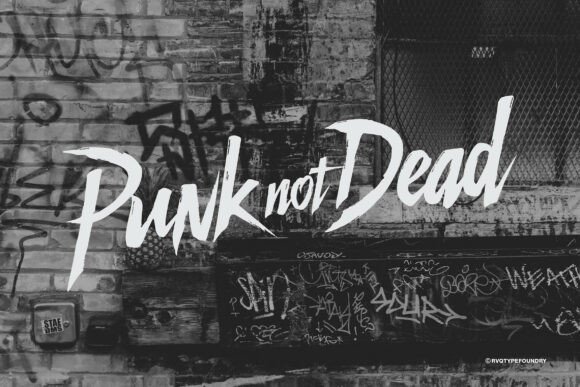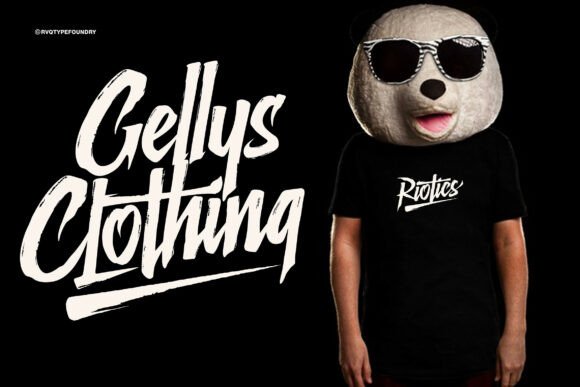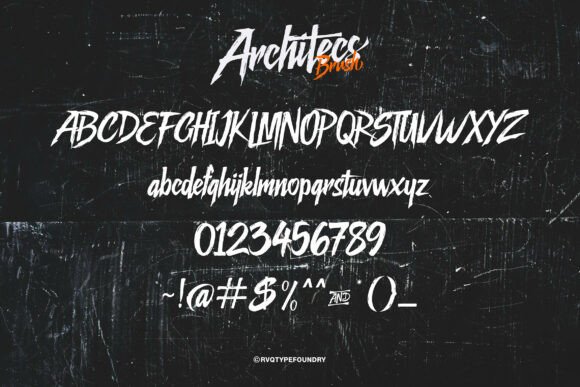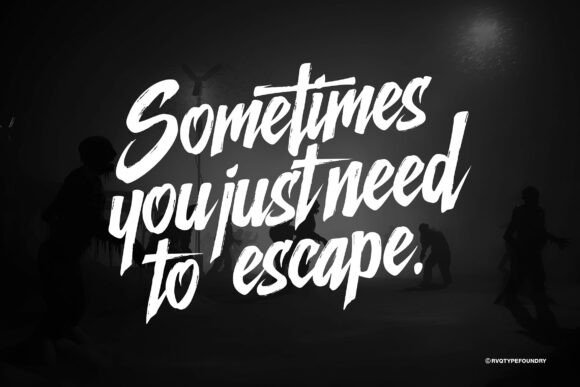
Introducing the Architecs Brush Font: Elevate Your Designs with Elegance and Vintage Charm
Are you on the hunt for a font that exudes sophistication, elegance, and a touch of vintage flair? Look no further than the Architecs Brush Font. This stunning handwritten brush font is designed to add a unique and personal touch to your designs, making it perfect for crafters, designers, and anyone looking to elevate their creative projects.
What Makes the Architecs Brush Font So Special?
The Architecs Brush Font boasts an elegant and vintage feel character set that is sure to captivate your audience. Its unique charm lies in its ability to create beautiful combinations by mixing uppercase and lowercase letters with alternative glyphs. This versatility allows you to experiment with various typography styles, ensuring your designs stand out from the crowd.
Key Features of the Architecs Brush Font
So, what can you expect from this fantastic font? Here are some of its key features:
• Full set of capital and lowercase letters: The Architecs Brush Font includes a comprehensive set of letters, ensuring you have everything you need to create stunning text-based designs.
• Multi-lingual support: Whether you’re working on a project that requires English, Spanish, French, or any other language, this font has got you covered.
• Currency figures, numerals, punctuation: The font includes a range of essential characters, making it perfect for creating invoices, quotes, and other business-related documents.
• Extra glyphs: With additional glyphs at your disposal, you can add an extra layer of creativity to your designs, taking them to the next level.
• Branding and logos: The Architecs Brush Font is perfect for creating elegant and sophisticated logos that reflect your brand’s personality.
• Invitations and greeting cards: Add a touch of vintage charm to your invitations and greeting cards, making them truly special and memorable.
• Social media graphics: Elevate your social media presence with stunning graphics that showcase your creativity and style.
• Packaging and labels: Use the Architecs Brush Font to create eye-catching packaging and labels that stand out on store shelves.
Tips and Tricks for Getting the Most Out of the Architecs Brush Font
To truly make the most of this amazing font, here are some tips and tricks to keep in mind:
• Experiment with different font sizes: The Architecs Brush Font looks stunning in a range of font sizes, so don’t be afraid to experiment and find the perfect size for your design.
• Mix and match with other fonts: Combine the Architecs Brush Font with other fonts to create a unique and visually appealing typography style.
• Play with colors and textures: Add an extra layer of depth to your designs by incorporating different colors and textures.
The Architecs Brush Font is a game-changer for designers and crafters looking to add a touch of elegance and vintage charm to their creative projects. With its comprehensive character set, multi-lingual support, and versatility, this font is sure to become a staple in your design toolkit. So why wait? Download the Architecs Brush Font today and start elevating your designs to new heights!